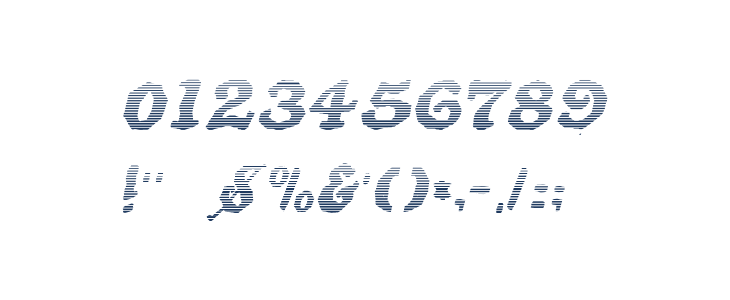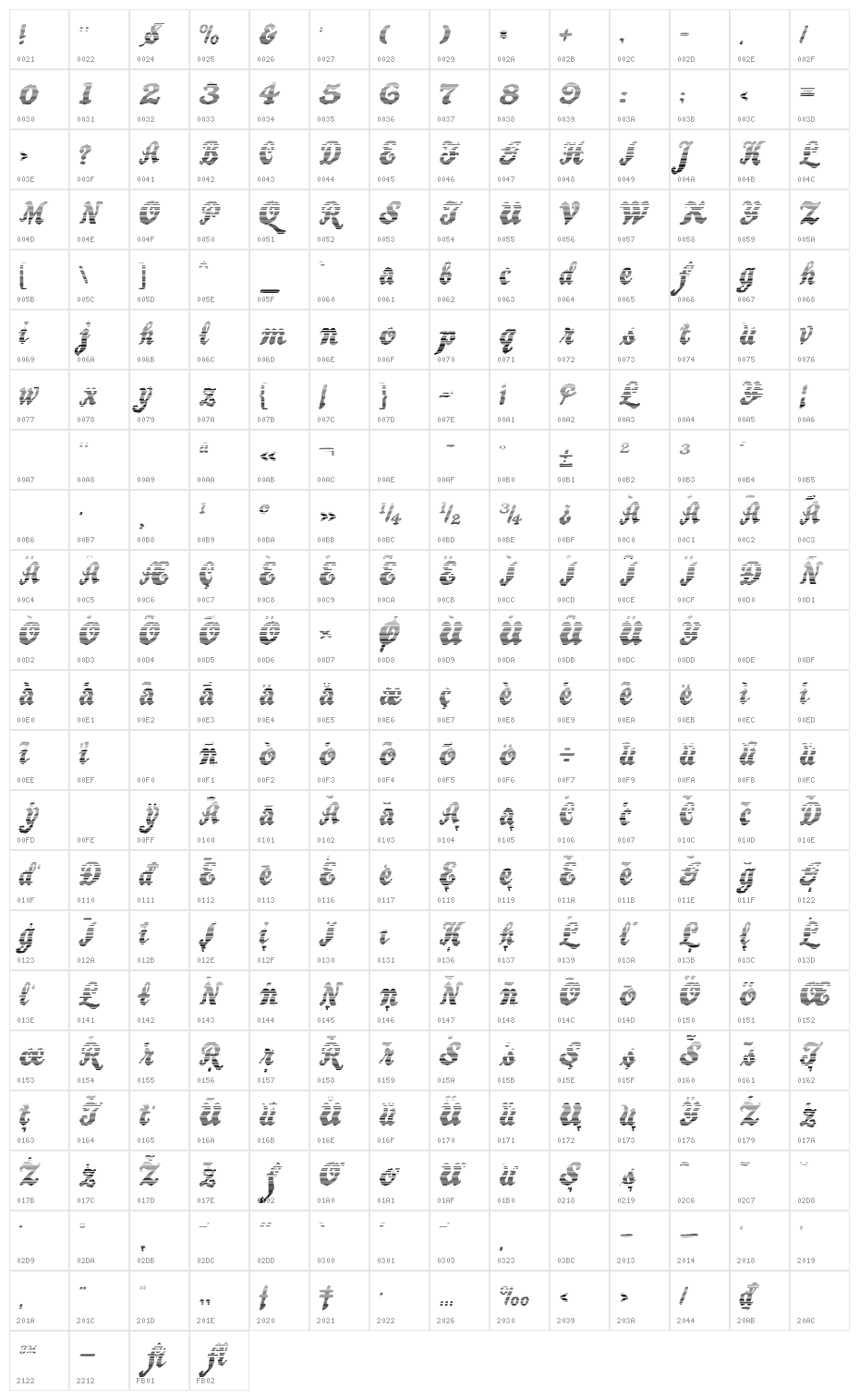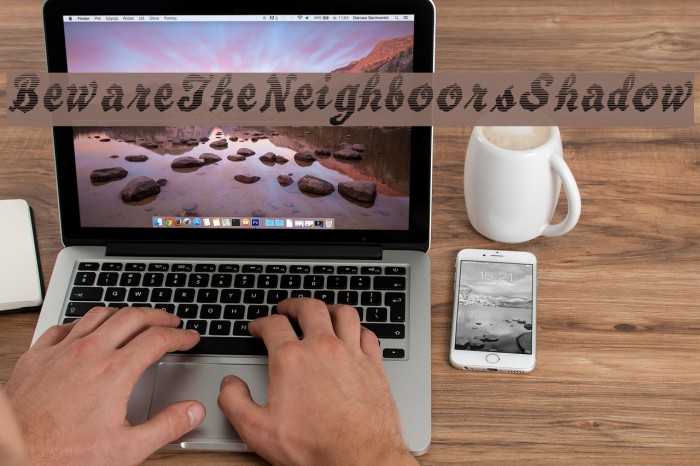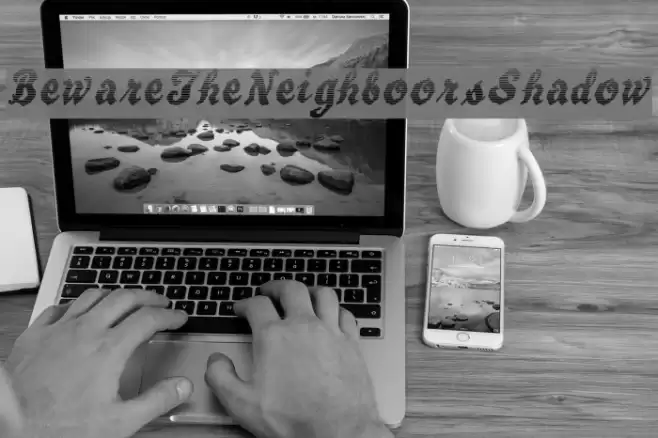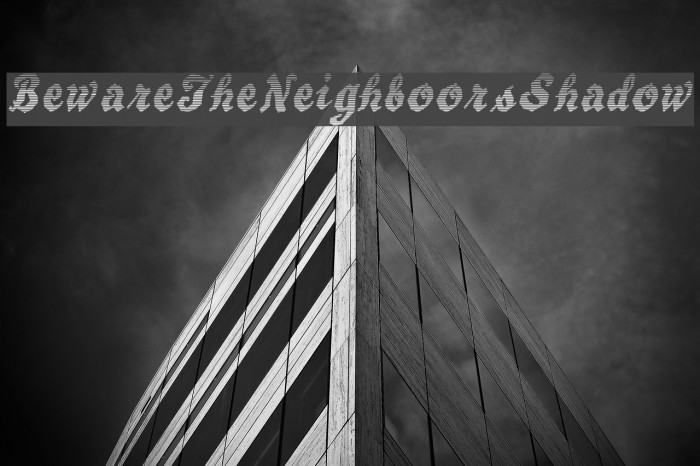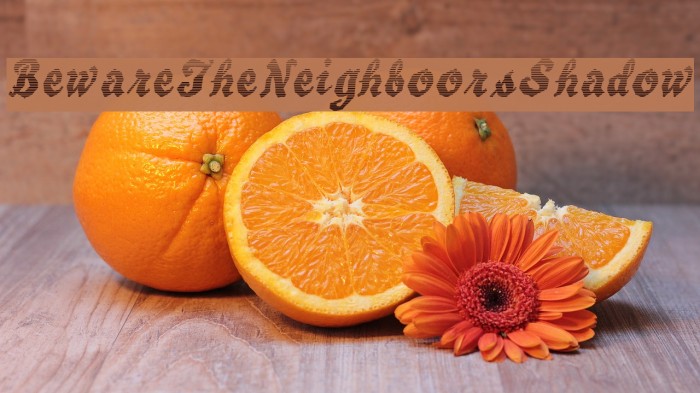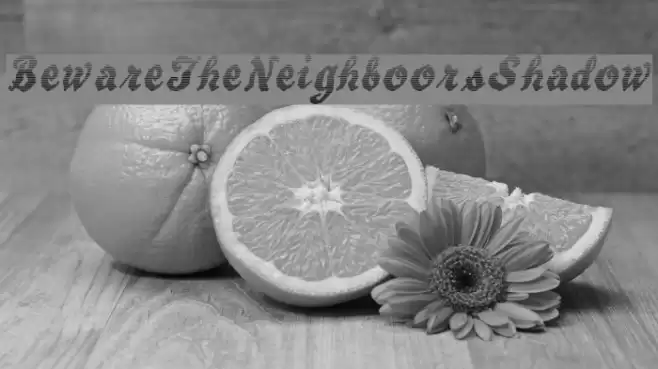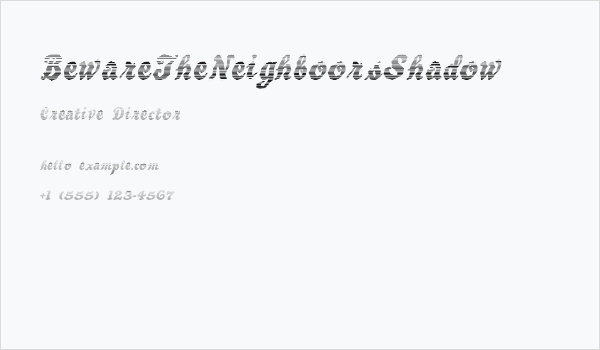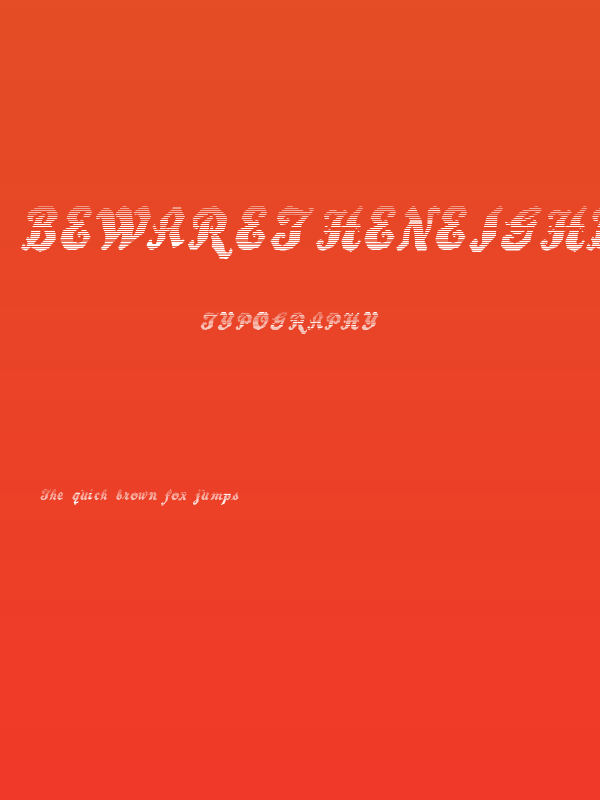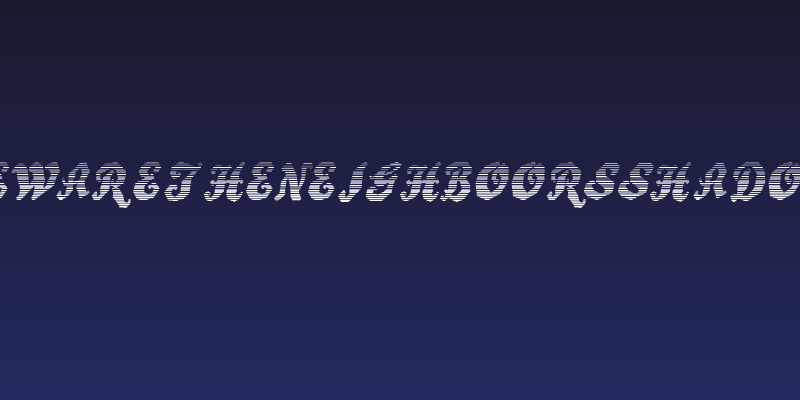
BewareTheNeighboorsShadow Font
BewareTheNeighboorsShadow Description
This font features a unique striped pattern that gives it a dynamic and eye-catching appearance. The characters are bold and italicized, with a slanted orientation that adds a sense of movement and flair. The strokes are thick, contributing to a high contrast between the filled and empty spaces within each letter. The overall style is decorative, making it suitable for creative and artistic projects. The spacing between characters is tight, enhancing the compact and cohesive look of the text. This font is ideal for making a bold statement in headlines, posters, or branding materials where a distinctive and memorable typeface is desired.